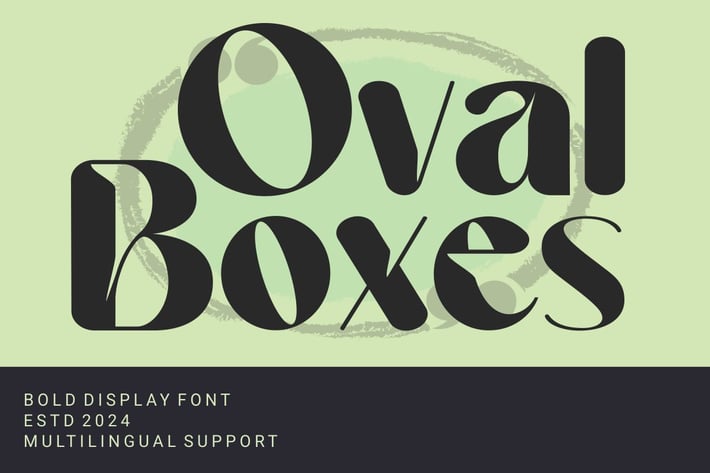
OvalBoxes - Bold Display Font
Introducing our new product OvalBoxes - Bold Display Font Modern Font
OvalBoxes - Bold Display Font - Modern Font is a bold and authentic display font. The font is suitable for any branding project like logo, t-shirt printing, esport, and many more. outstanding in a wide range of contexts.